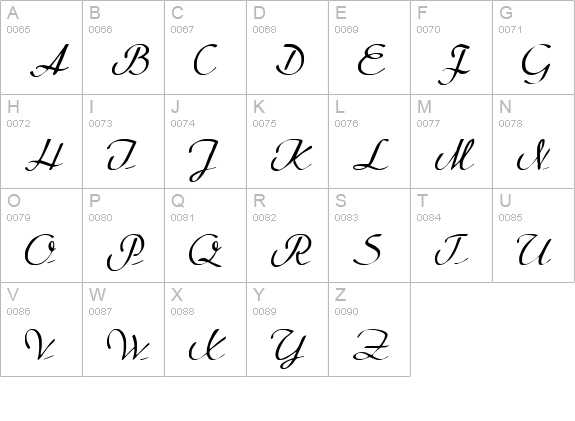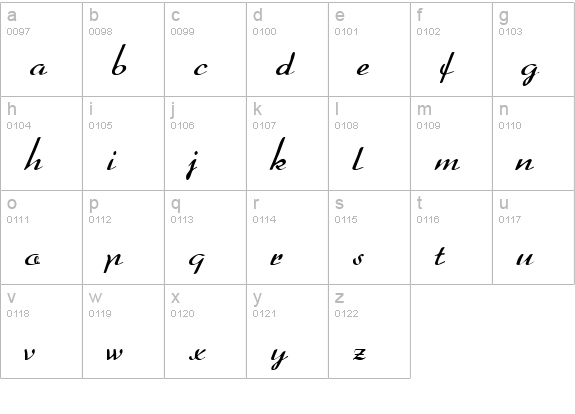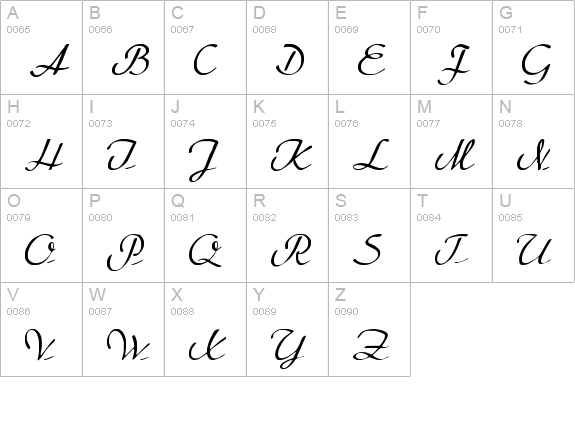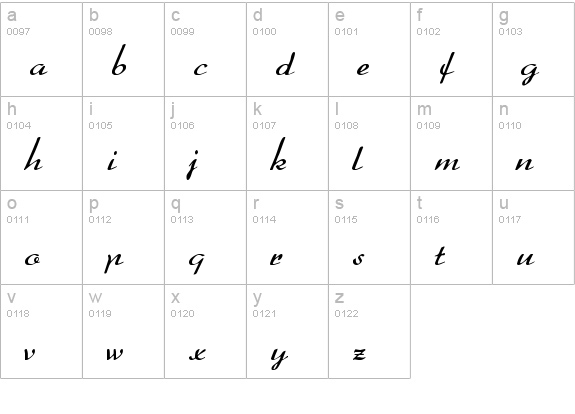
Schulmeister Font Details
Schulmeister font is a beautifully crafted typeface that exudes elegance and sophistication. Its modern yet timeless design makes it a versatile choice for a wide range of design projects. The font features clean lines and stylish curves that give it a polished and professional look. One of the best things about Schulmeister font is that it is completely free to download. You can easily access this stunning font at FontsMarket.com, where you can download it and start using it in your projects right away. Whether you're creating a logo, designing a website, or working on a print project, Schulmeister font is sure to add a touch of class and style. Don't miss out on this amazing free font – download Schulmeister today and take your designs to the next level!